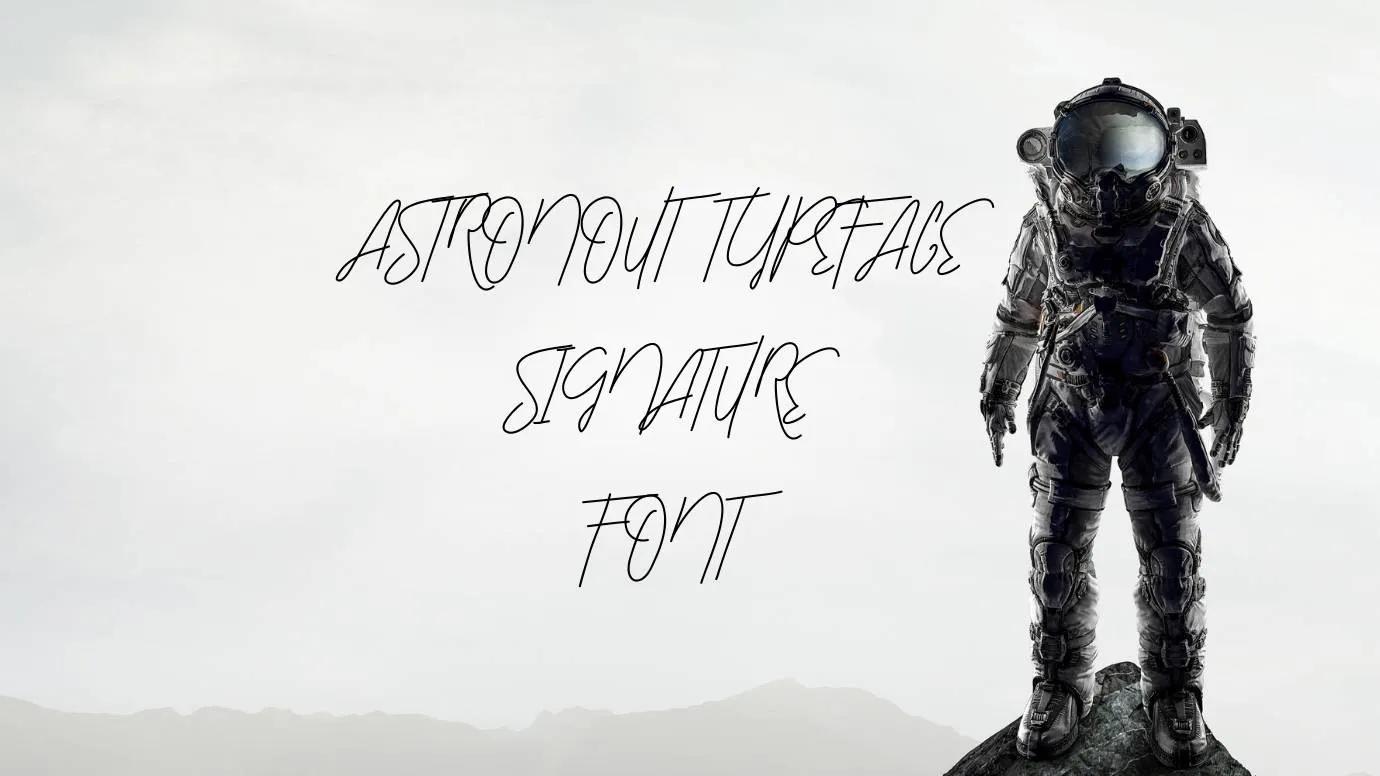
Astronout Signature Font Family is an incredibly beautiful and sophisticated font known as Astronout Signature Font. This contemporary font is essential for modern design work.
This font has stylish slim handcrafted fancy textures that are pleasant for continuous reading. It is free for all your business and commercial designs. Bestlife Font and Scriptina Font are the most similar fonts to this typeface.
Astronout Signature Font